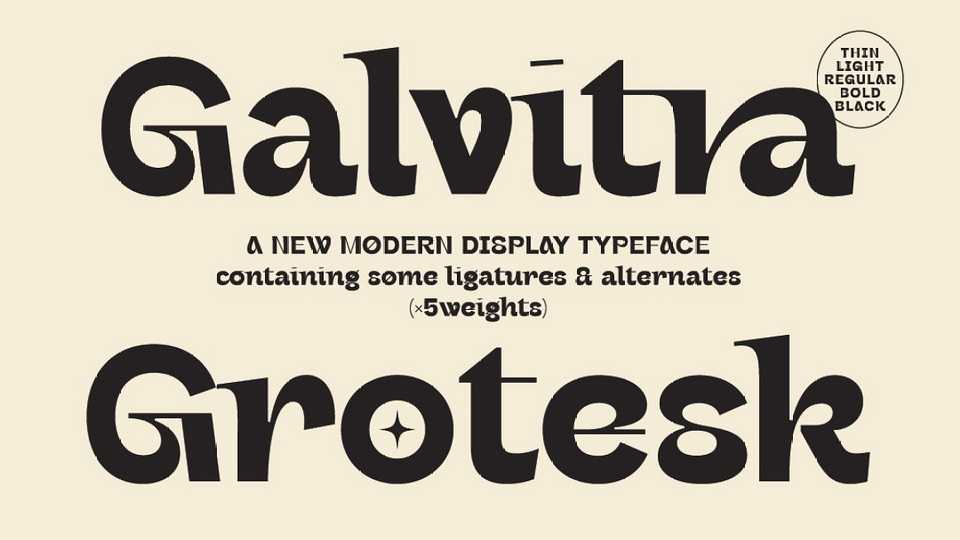
Galvitra Grotesque Font › Fontesk – Download Grátis
Download Galvitra font, a modern display typeface take on a grotesk style. Galvitra Grotesque font has unique shapes and serifs on selective characters, that’s sure make your design stand out.
Designer: Zarma Type Foundry